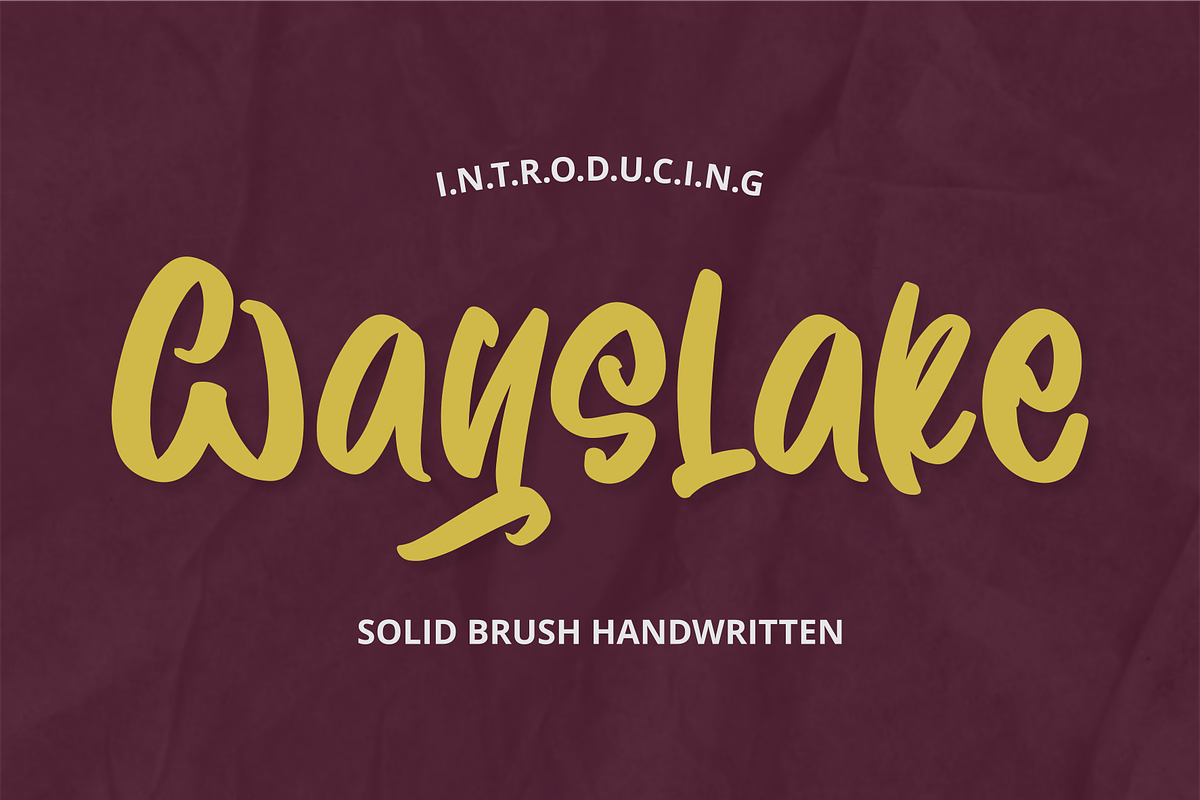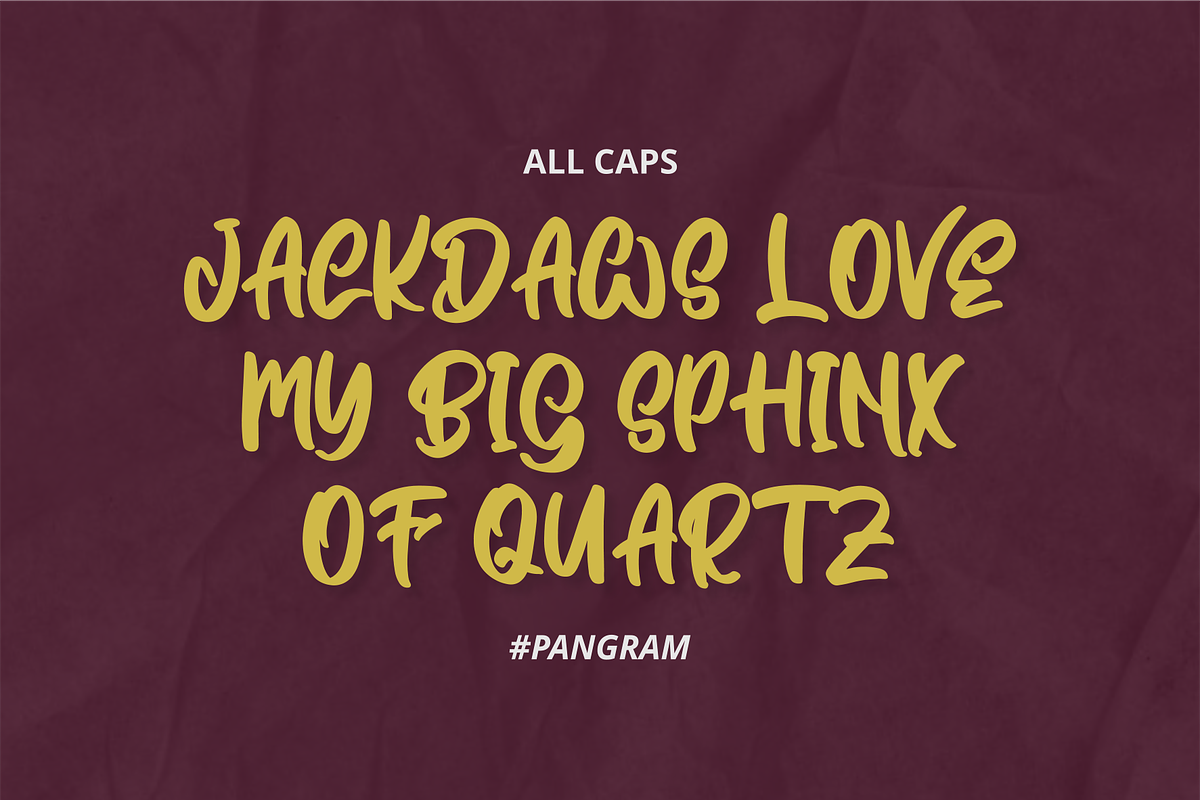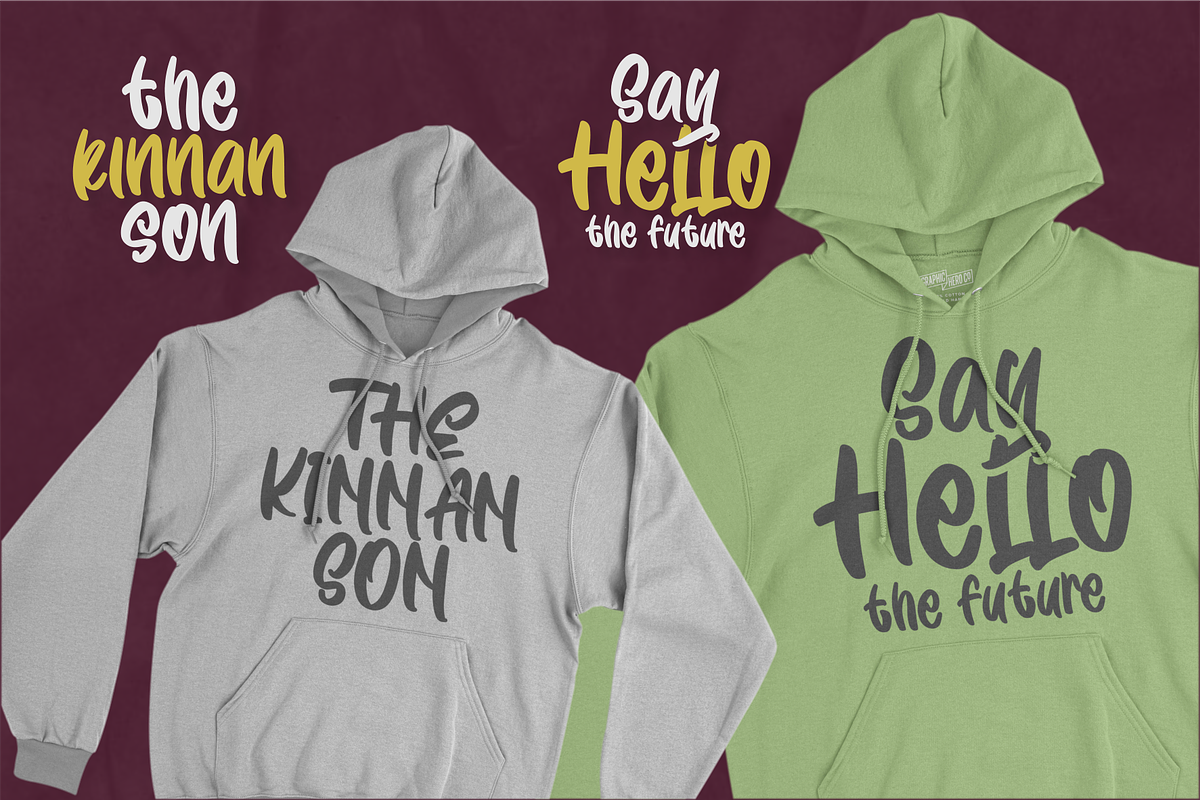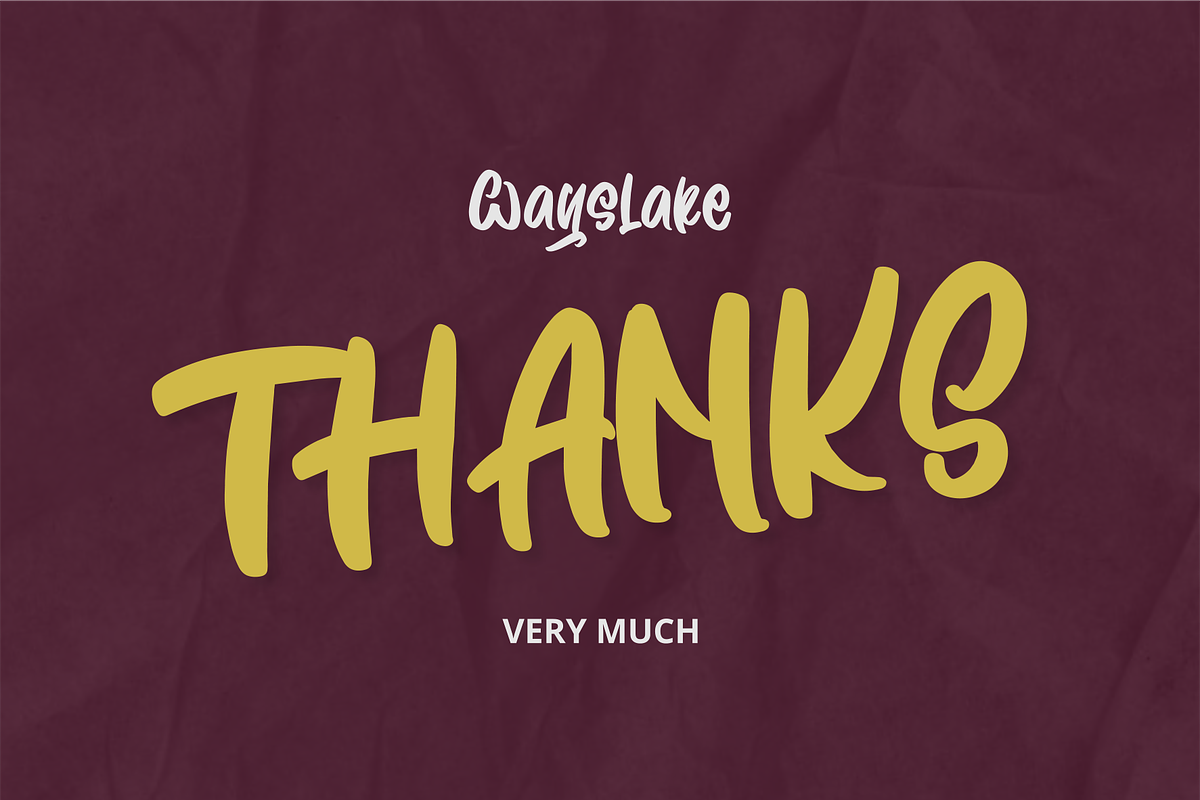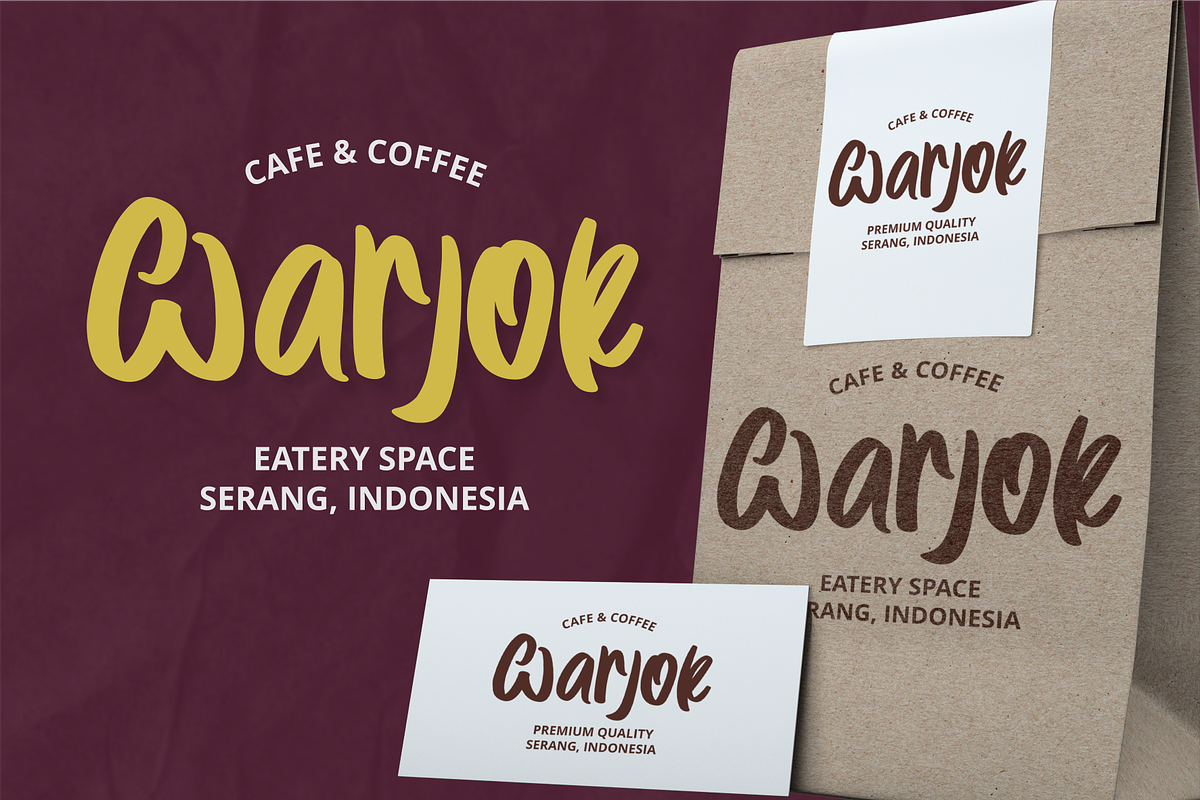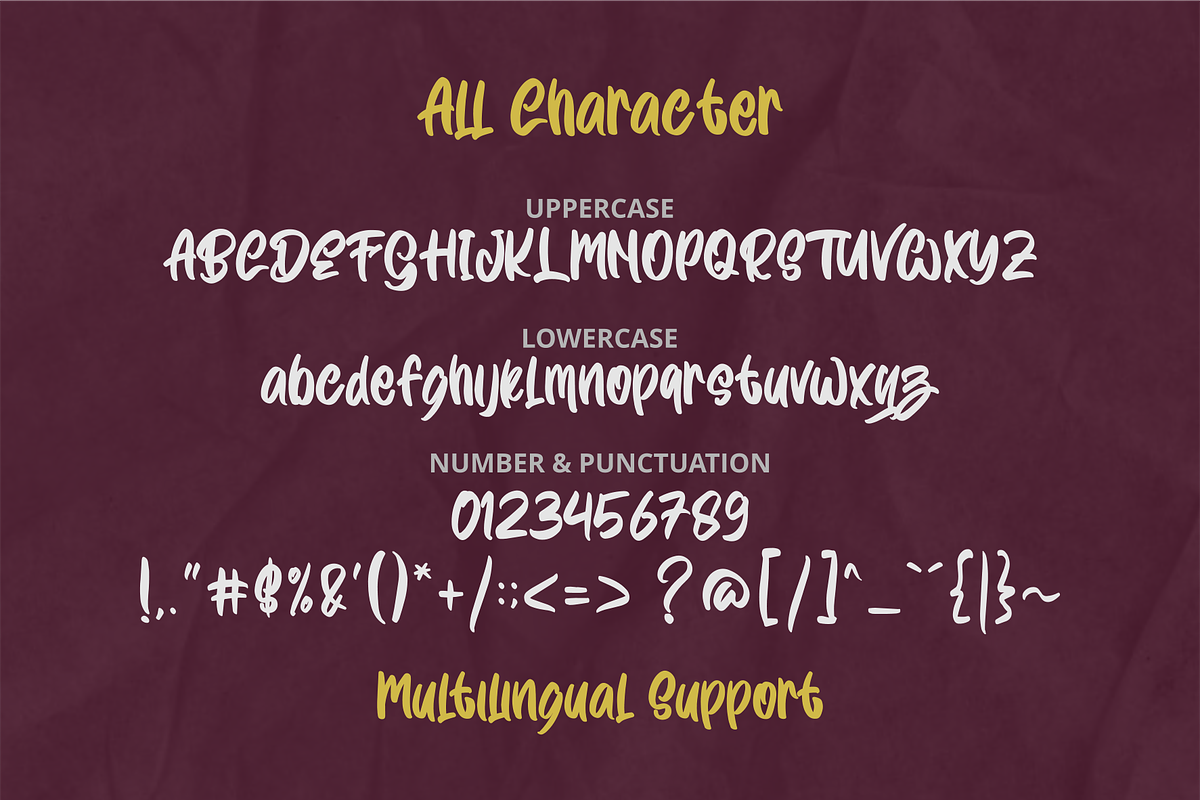
Wayslake
Wayslake is a casual handwritten font with an incredibly friendly feel. Whether you’re looking for fonts for Instagram or call graphics scripts for DIY projects, this font will turn any creative ideas into a true piece of art!